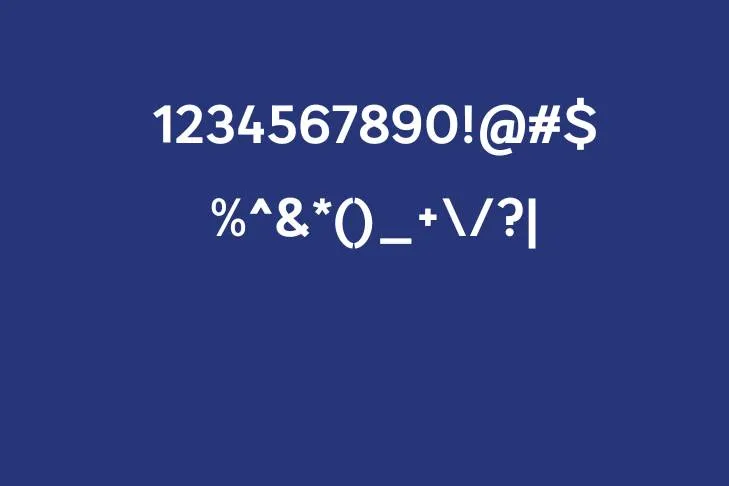
Presenting to you an attractive and charming typeface called Epitet font. This alluring typeface belongs to the Sans-Serif typeface family. This eloquent typeface is meticulously devised by a famous graphic designer, Alejo Bergmann who is based in Argentina and it was released by Graphic Pear Studio.
This versatile typeface is ideal for a variety of applications. It has gradually gained popularity among designers due to its versatile and phenomenal lettering style, which goes perfectly for any kind of digital or printing purpose.
Creative Ways to Use Epitet Font
Epitet font is a multifaceted typeface that can be adjusted to any kind of design or pattern and also produce exceptional results. It can be utilized for branding initiatives, product packaging, advertising, editorial designs, and many more. IT is also helpful for making a pair with another typeface such as lombriz font.
It’s also purposeful for designing an astounding layout for websites of various types and its impeccable lettering style draws the attention of viewers and thus, engages more and more traffic. In addition to this, you can also employ this fabulous typeface for several creative tasks, like creating headings, subheadings, titles, logos, signage, posters, banners, or brochure layouts, as its distinct lettering will add elegance in your design projects.
Characters and Glyphs
This opulent typeface beholds a futuristic and graceful appearance because of having simple, clean strokes which makes your design more minimal and basic. The letter structure of this typeface is bold and well-spaced. Moreover, this bold lettering style makes your design legible. It is available in three weights: Bold, Regular, and Light.
Furthermore, this font comprises several appealable aesthetics, including multi-language support which make it accessible to a wider audience; as well as it also beholds some open type features including ligatures, stylistic alternates, and several glyphs. These wonderful features impart an everlasting impression on your projects and make them more mesmerizing than usual.
Who is the creator of the Epitet Font?
This eloquent typeface is meticulously devised by a famous graphic designer, Alejo Bergmann who is based in Argentina and it was released by Graphic Pear Studio.
Is the Epitet font present with OpenType features?
Yes, it beholds some open-type features including ligatures, stylistic alternates, and several glyphs. These wonderful features impart an everlasting impression on your projects and make them more mesmerizing than usual.
Where can I use the Epitet Font?
Epitet font is a multifaceted typeface that can be adjust to any kind of design or pattern and also produce exceptional results. It can be used for branding initiatives, product packaging, advertising, editorial designs, and many more.